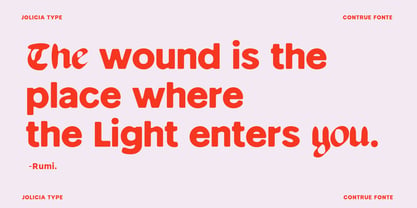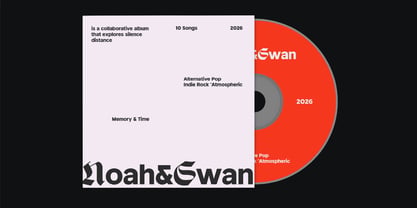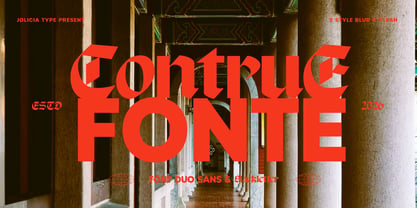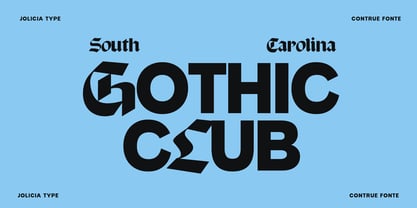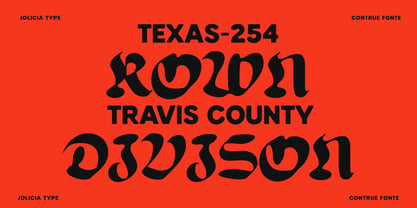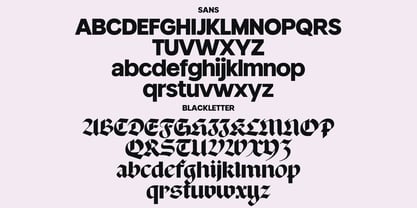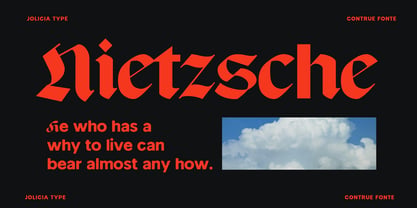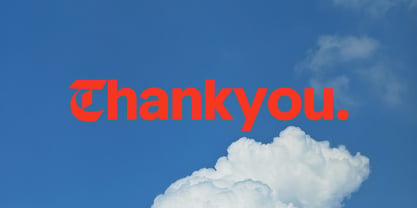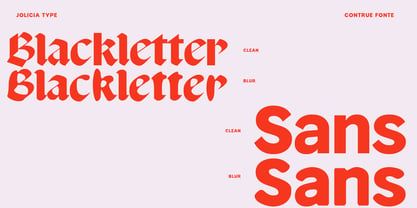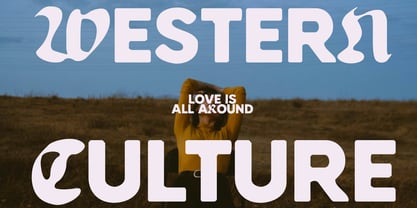
Contrue Fonte
by Jolicia Type
The Contrue Fonte Font Family was designed by Laire Banyu and published by Jolicia Type. Contrue Fonte contains 4 styles and family package options. More about this family
Contrue Fonte | Font Duo Contrue Fonte is a bold font duo that bridges the modern and the medieval. It combines a clean, contemporary sans serif with a dramatic blackletter style, creating a striking contrast between clarity and ornament. Designed for expressive headlines and statement-driven visuals, Contrue Fonte offers versatility across branding, posters, album covers, and editorial design. To elevate its visual impact, Contrue Fonte also includes a distinctive blur style, adding depth, motion, and a surreal atmosphere—perfect for experimental layouts and modern visual storytelling. This duo empowers designers to move fluidly between sharp minimalism and dark, expressive typography within a single font system.
Designers: Laire Banyu
Foundry: Jolicia Type